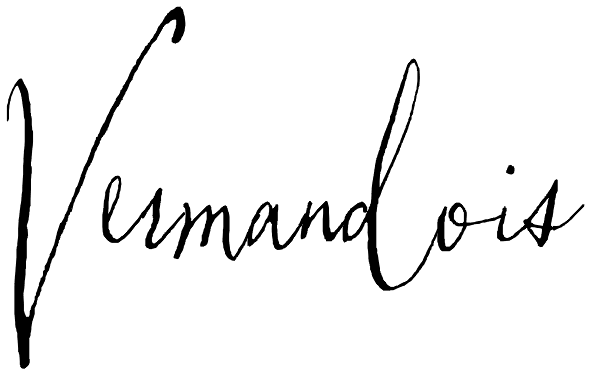
Vermandois
Rough yet refined, kinetic and distinctive, the handdrawn Vermandois family mimics original calligraphy with exceptional accuracy. Perfect for correspondence, invitations, unique branding and display, Vermandois' connecting letters, caps and ink...
Vermandois Splatter
Vermandois